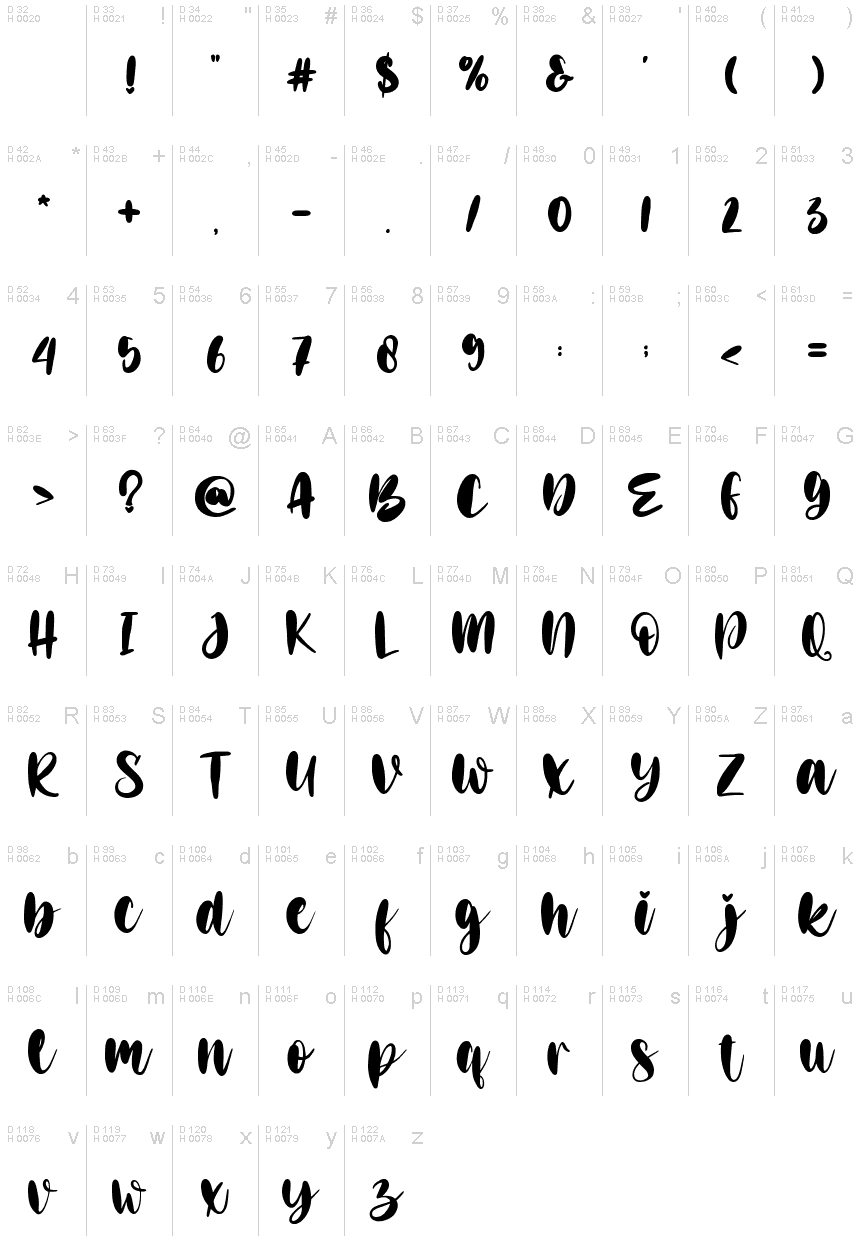
Embrace the charm of Loving Me, a captivating brush script font meticulously crafted by Letterara. With its semi-bold weight, this trendy typeface exudes a neat yet whimsical style that effortlessly breathes life into any project. The Loving Me font stands out with its fluidity and grace, making it an ideal choice for injecting a joyful and romantic flair into your designs.
From personalized invitations to compelling branding materials, Loving Me promises versatility across an array of creative endeavors. Its playful curves and subtle boldness invite designers to explore a world of imaginative possibilities, ensuring your message is not just seen but felt. Engage your audience with the heartfelt elegance that Loving Me brings to every word it forms.